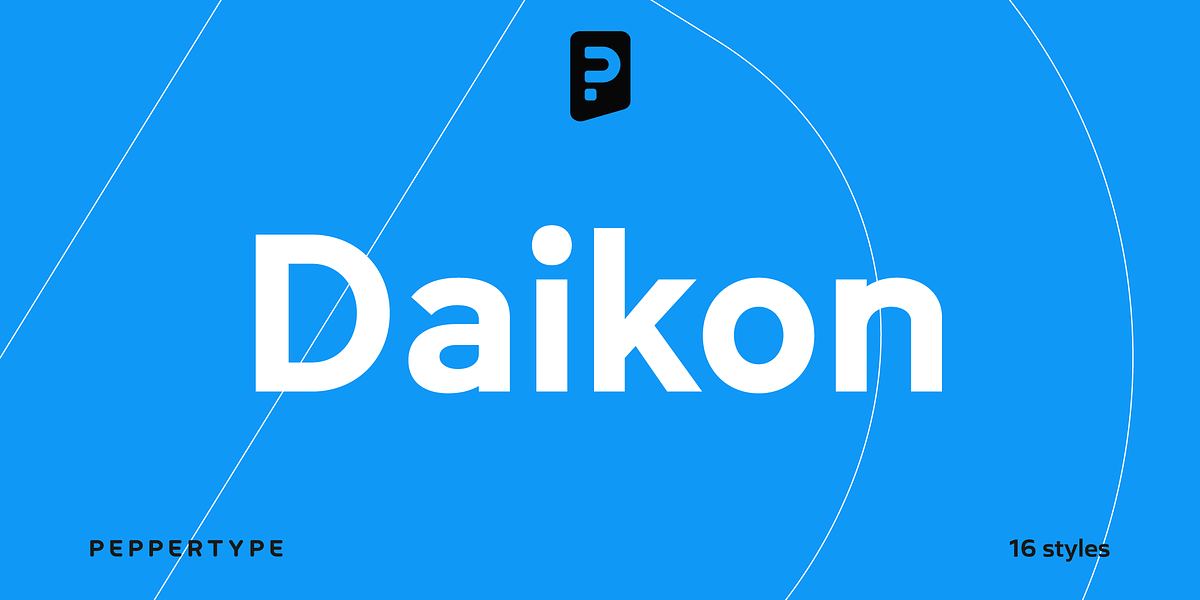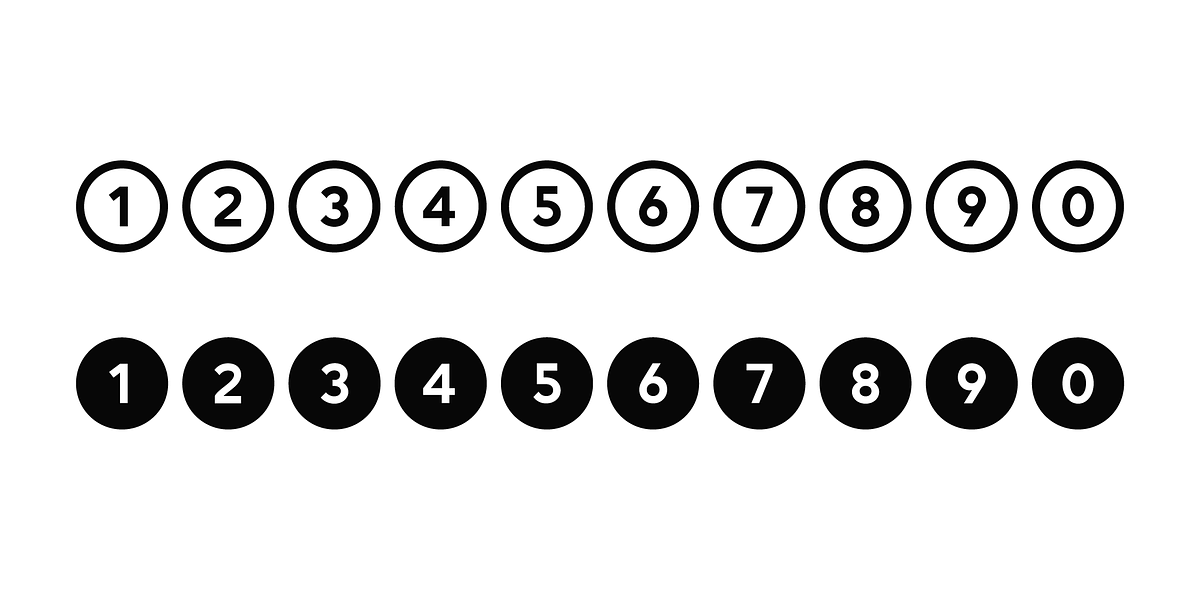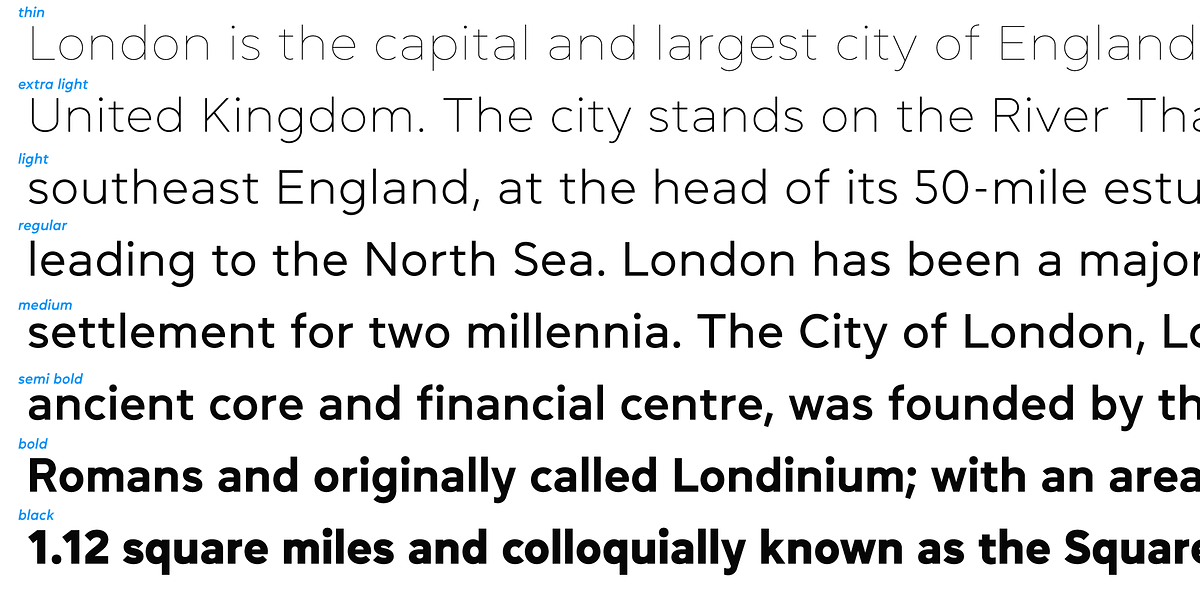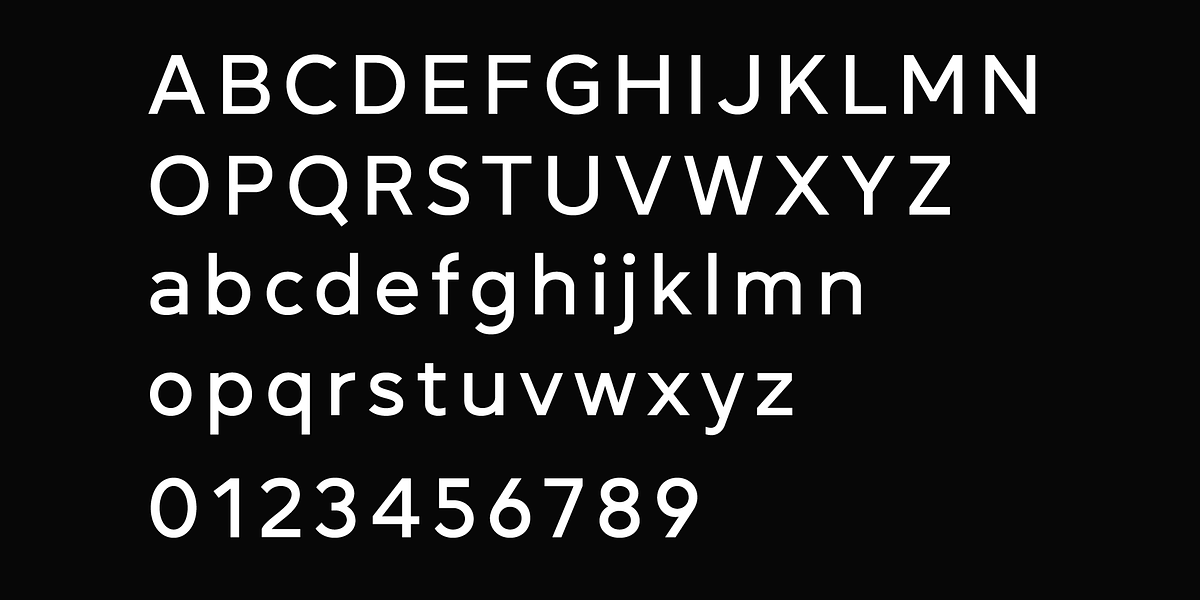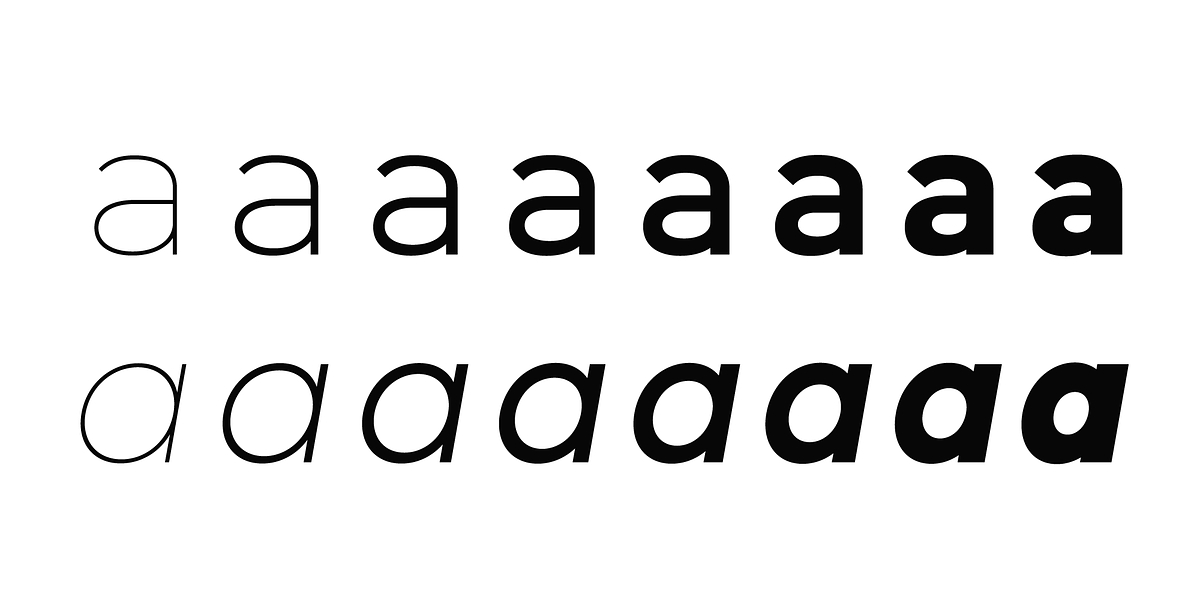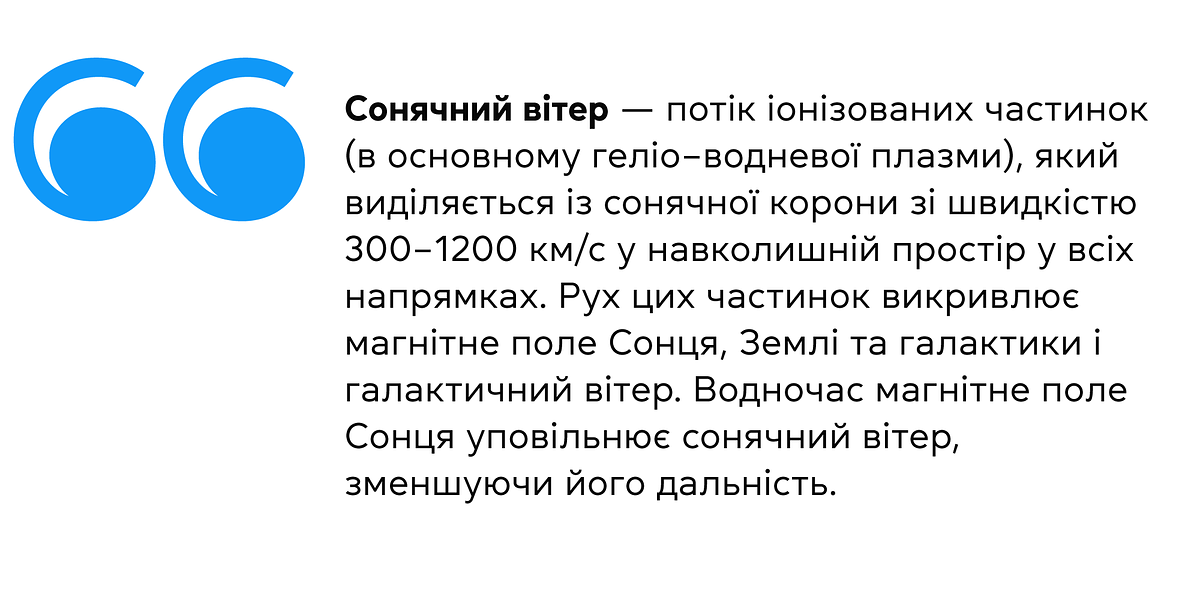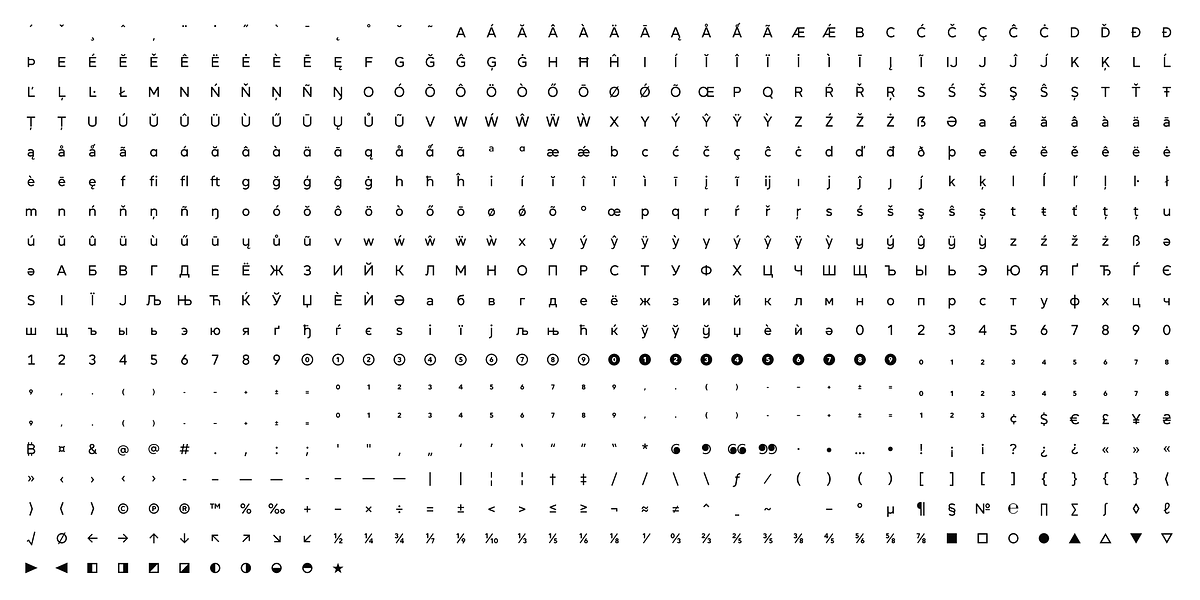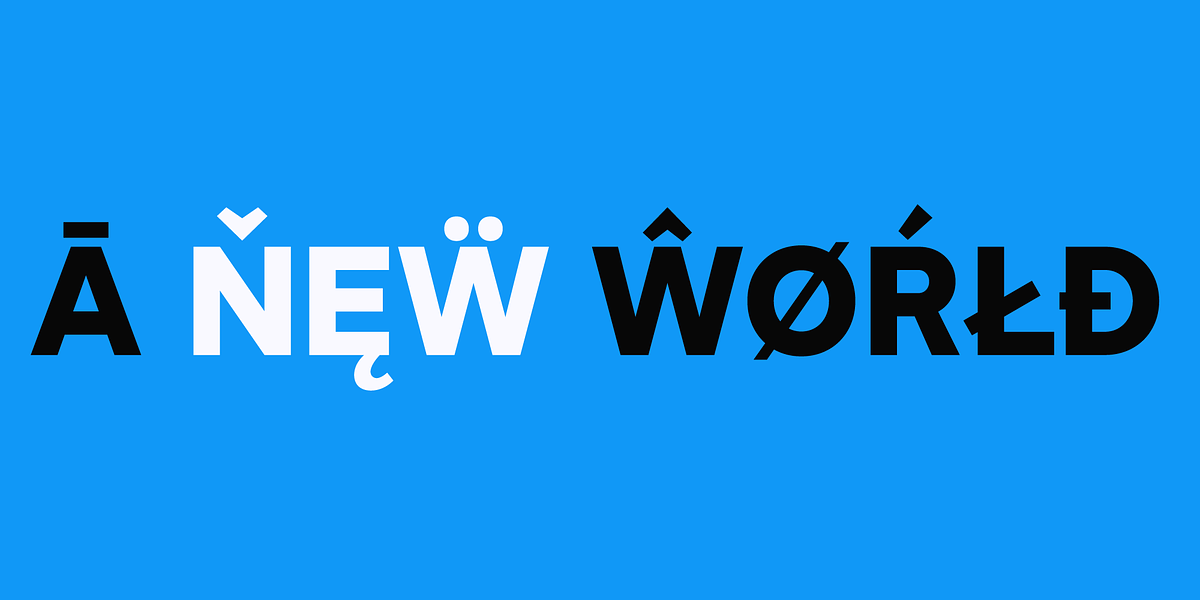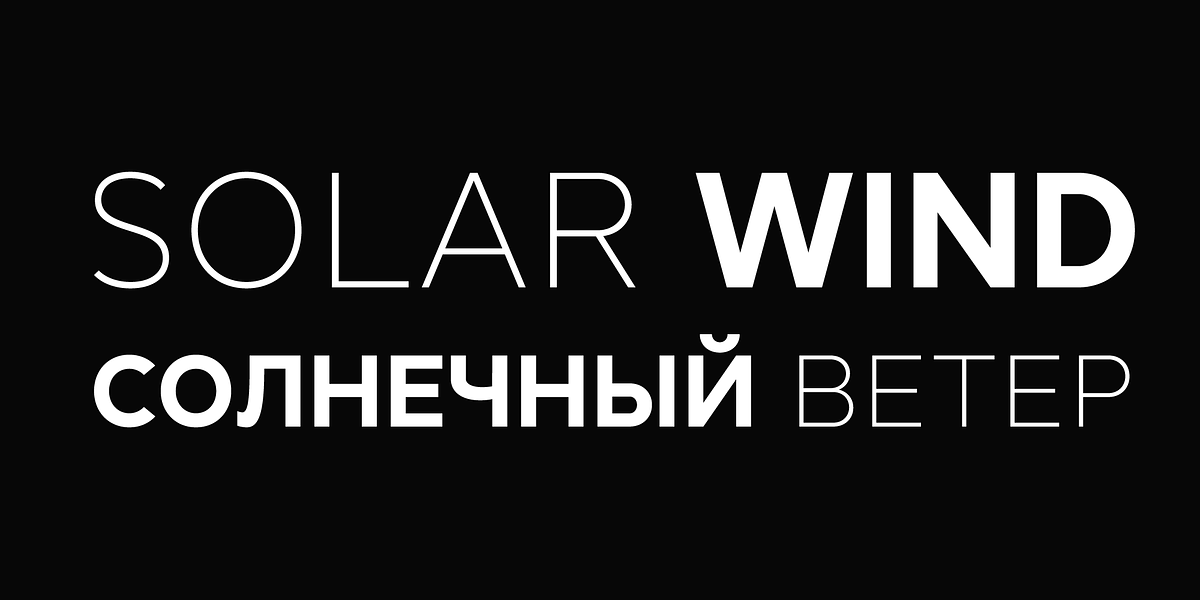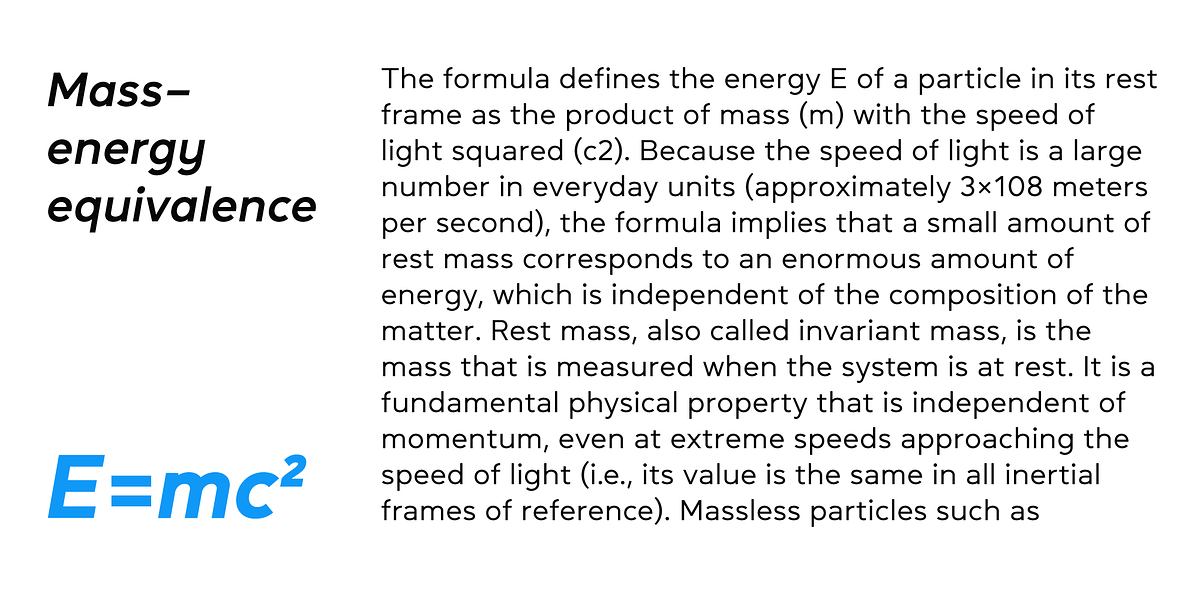
Daikon
Daikon is a geometric sans-serif font characterized by its clean lines and monolinear design. It offers strong readability at various sizes, making it suitable for both display purposes like headlines and as a body text font. The font includes extensive language support, including Cyrillic characters, and boasts several OpenType features along with multiple figure sets.